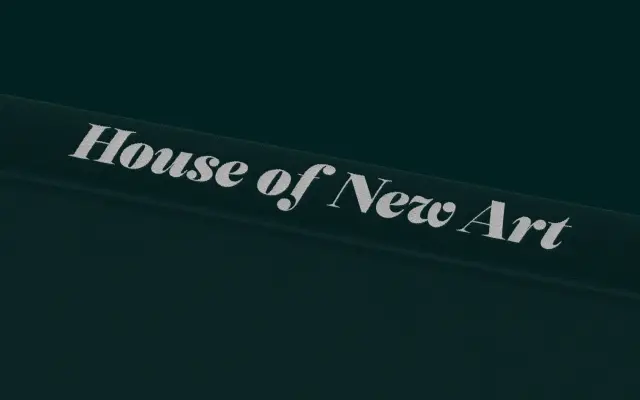
A high-contrast display serif drawing on 18th-century engraving and broad-nib calligraphy, with ball terminals and delicate serifs across 18 styles.
Built from references to engraved typography, classic calligraphy and Art Nouveau ornament, Selestin offers 681 characters per style with a full suite of OpenType features including contextual alternates, discretionary ligatures and 14 stylistic sets. Four numeral styles, lining through oldstyle, add typographic flexibility for demanding editorial and packaging applications. The family sits naturally in luxury branding and high-end print where visible craft and formal elegance are priorities.
Selestin is a high-contrast display serif with calligraphic origins and engraved letterform references, placing it firmly in the display category with a classical decorative serif subcategory informed by 18th-century engraving and Art Nouveau.